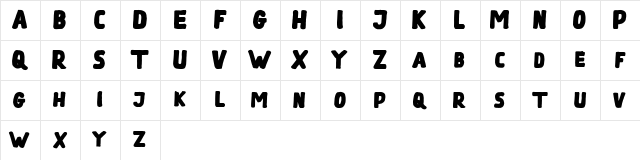
Tualang Regular Free Font
Tualang Regular
Design Context for Tualang
Tualang is a composed and adaptable typeface that performs quietly and consistently across a wide range of design contexts.